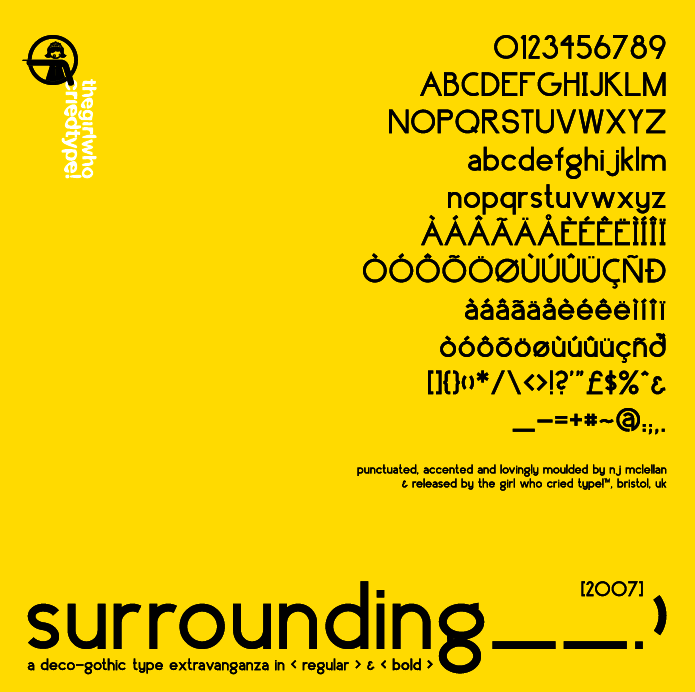
N.J. McLellan
UK-based designer (b. 1986) of Surrounding (2007, 3 styles), a sans family inspired by the text typeface used for Vespertine-era Björk merchandise. Aka TypeGirl, she also made BMFA (2007, an angry font), and Gayatri (2009) and Caprica (2009). The latter two typefaces are based on a type used in Battlestar Galactica. Dafont link. |